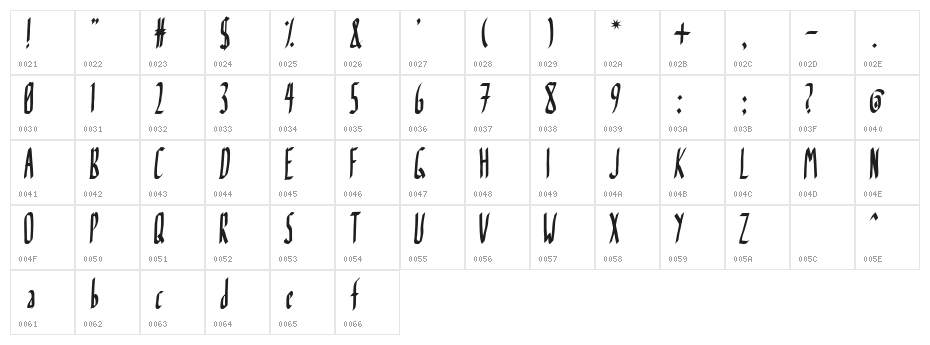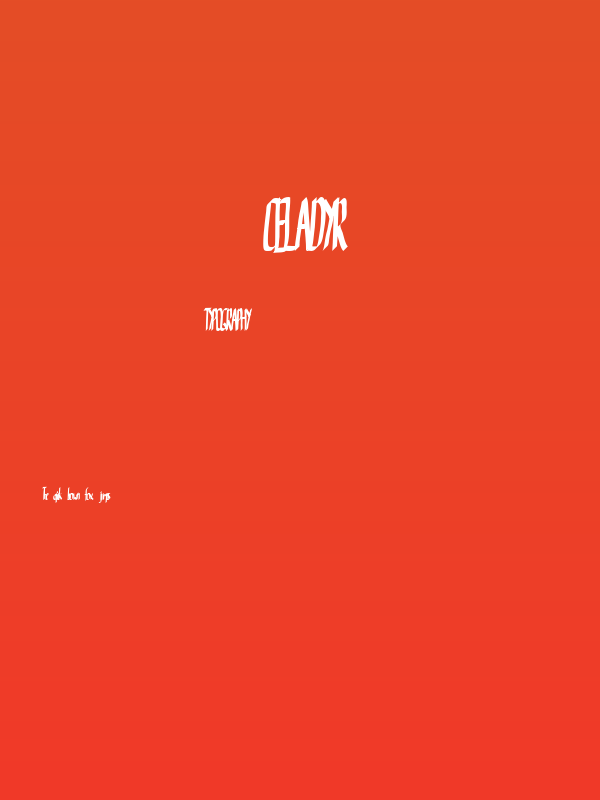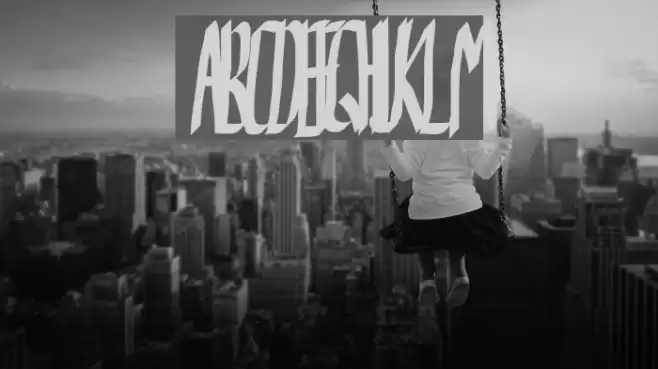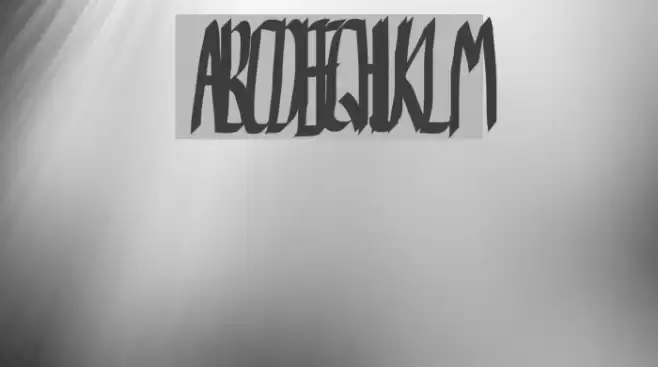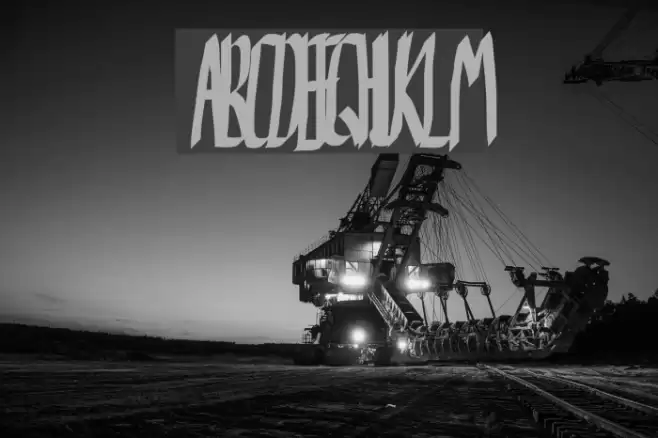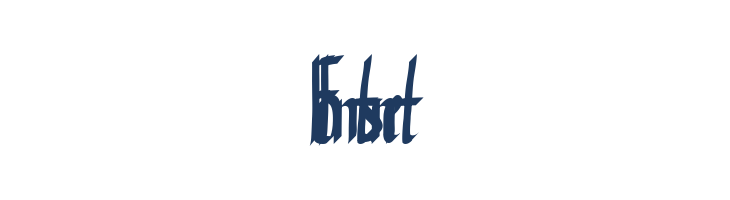
Celadyr Font
Celadyr Description
This font features a bold, dynamic style with sharp, angular lines and a slightly condensed form. The uppercase letters are tall and narrow, giving a sense of height and elegance, while the lowercase letters maintain a consistent flow with a slightly more relaxed structure. The numbers are distinct and maintain the same angular aesthetic, ensuring readability. Special characters are creatively designed, adding a unique flair to the overall appearance. This font's striking design makes it suitable for attention-grabbing projects.
| Proposed Projects | Ideal for posters, logos, branding materials, and headlines that require a strong visual impact. |